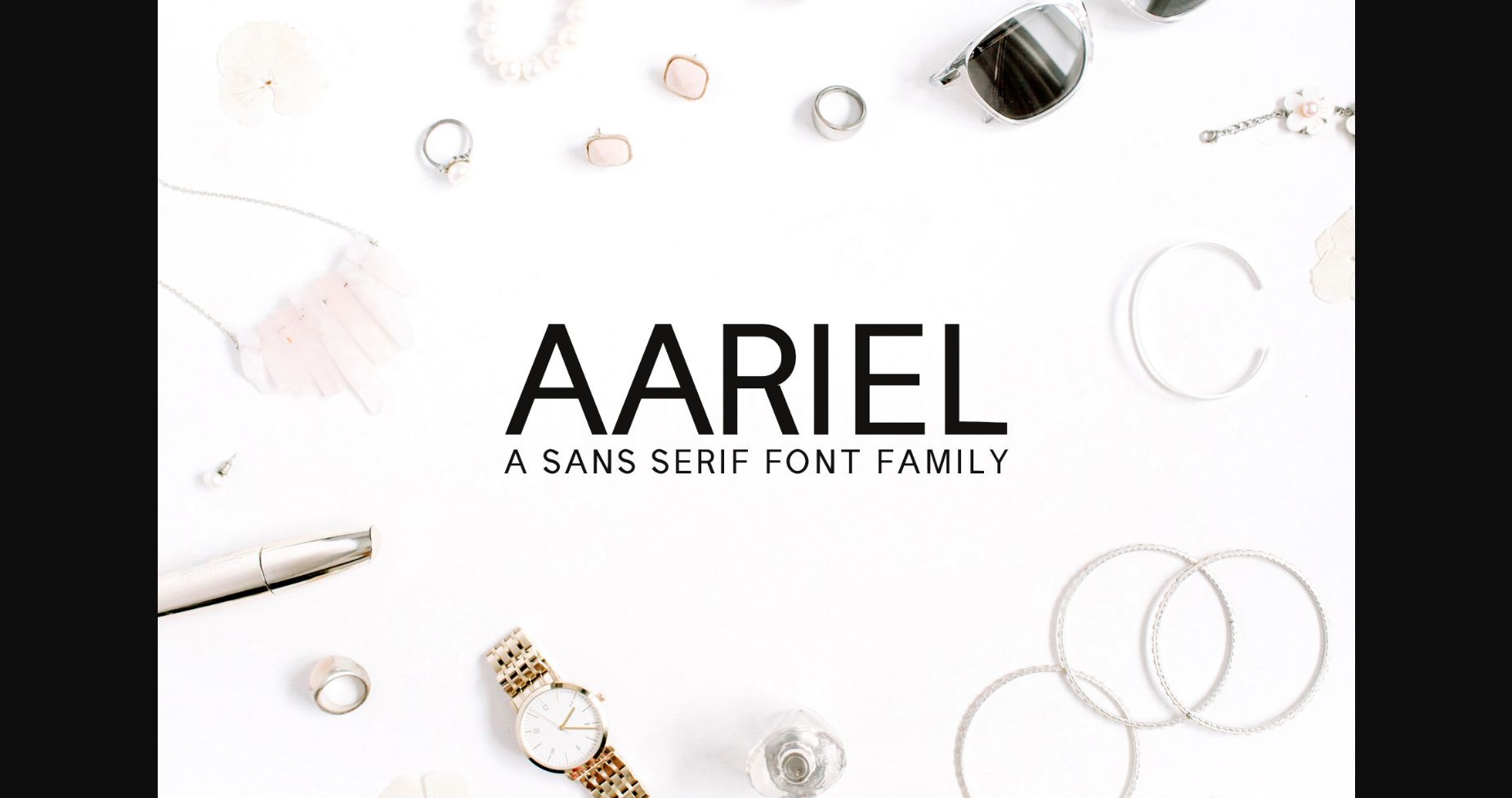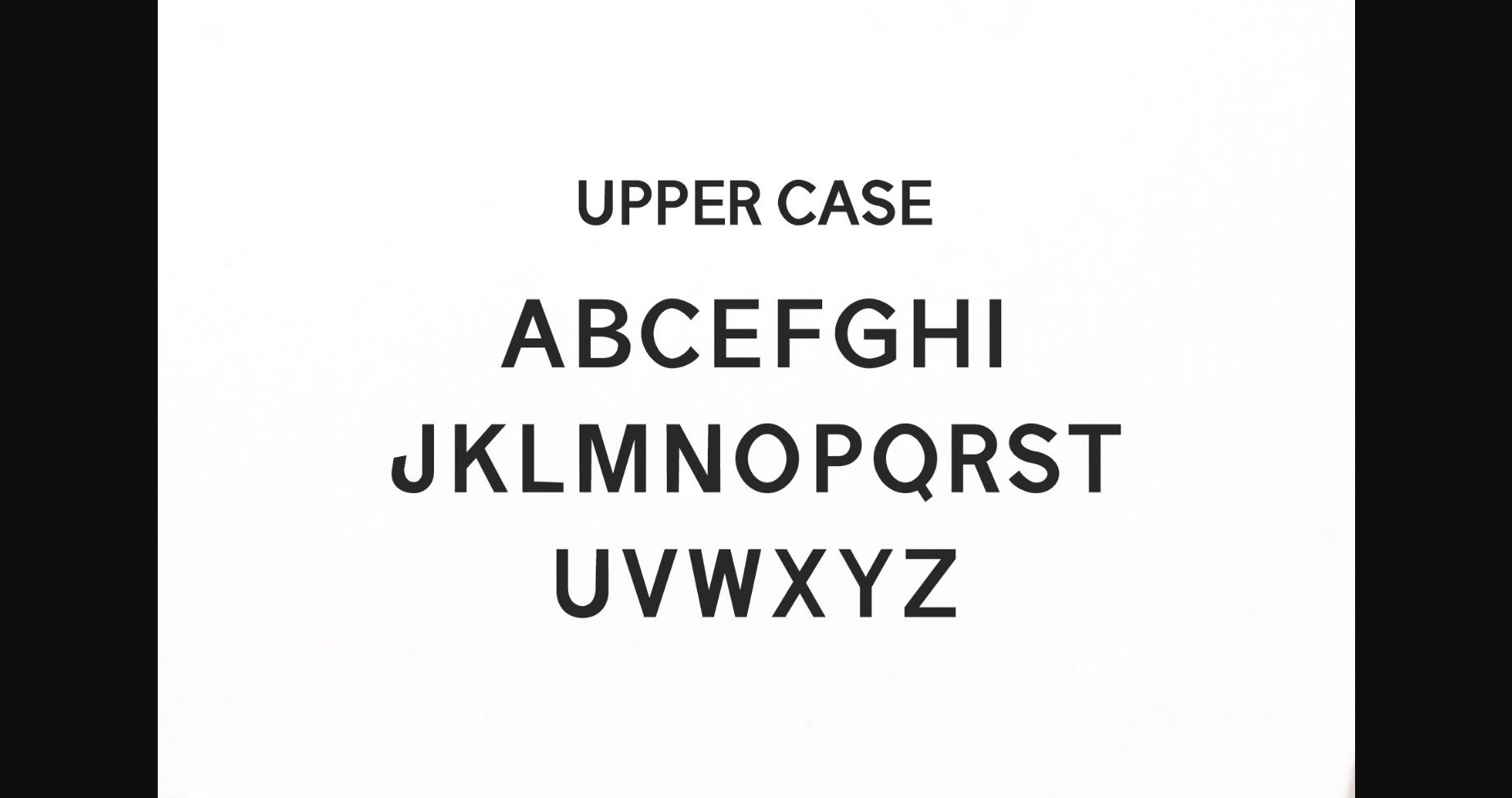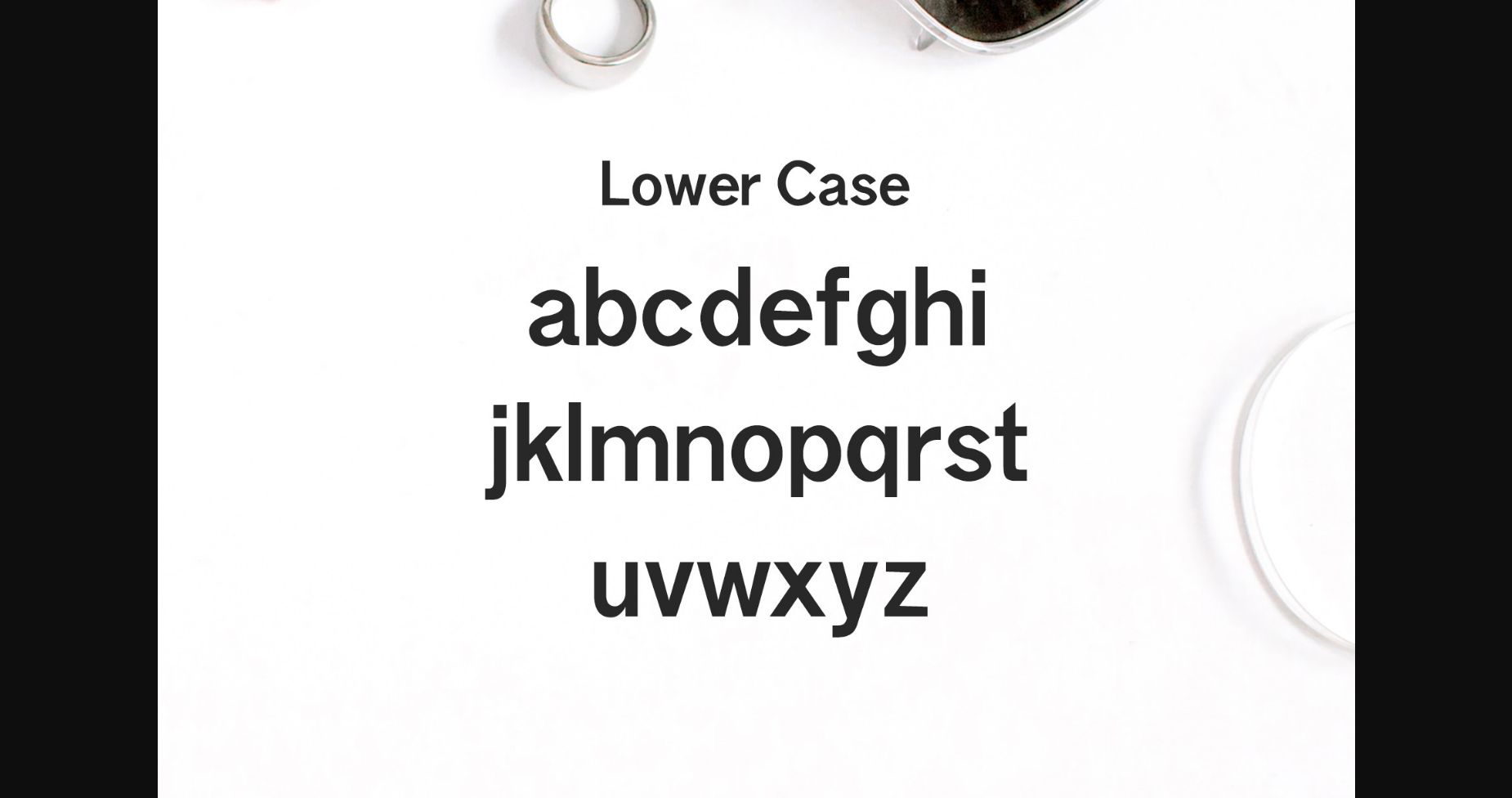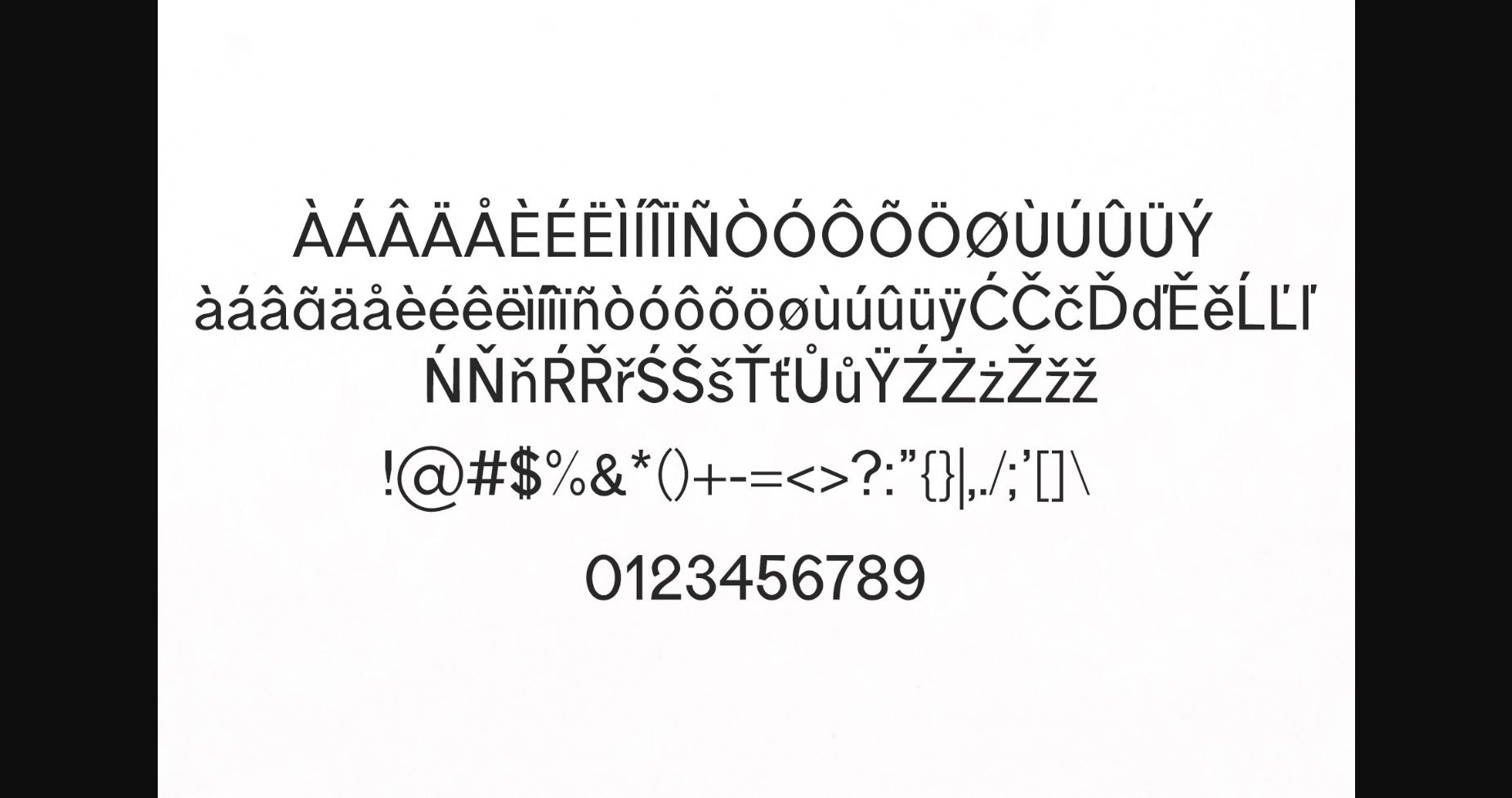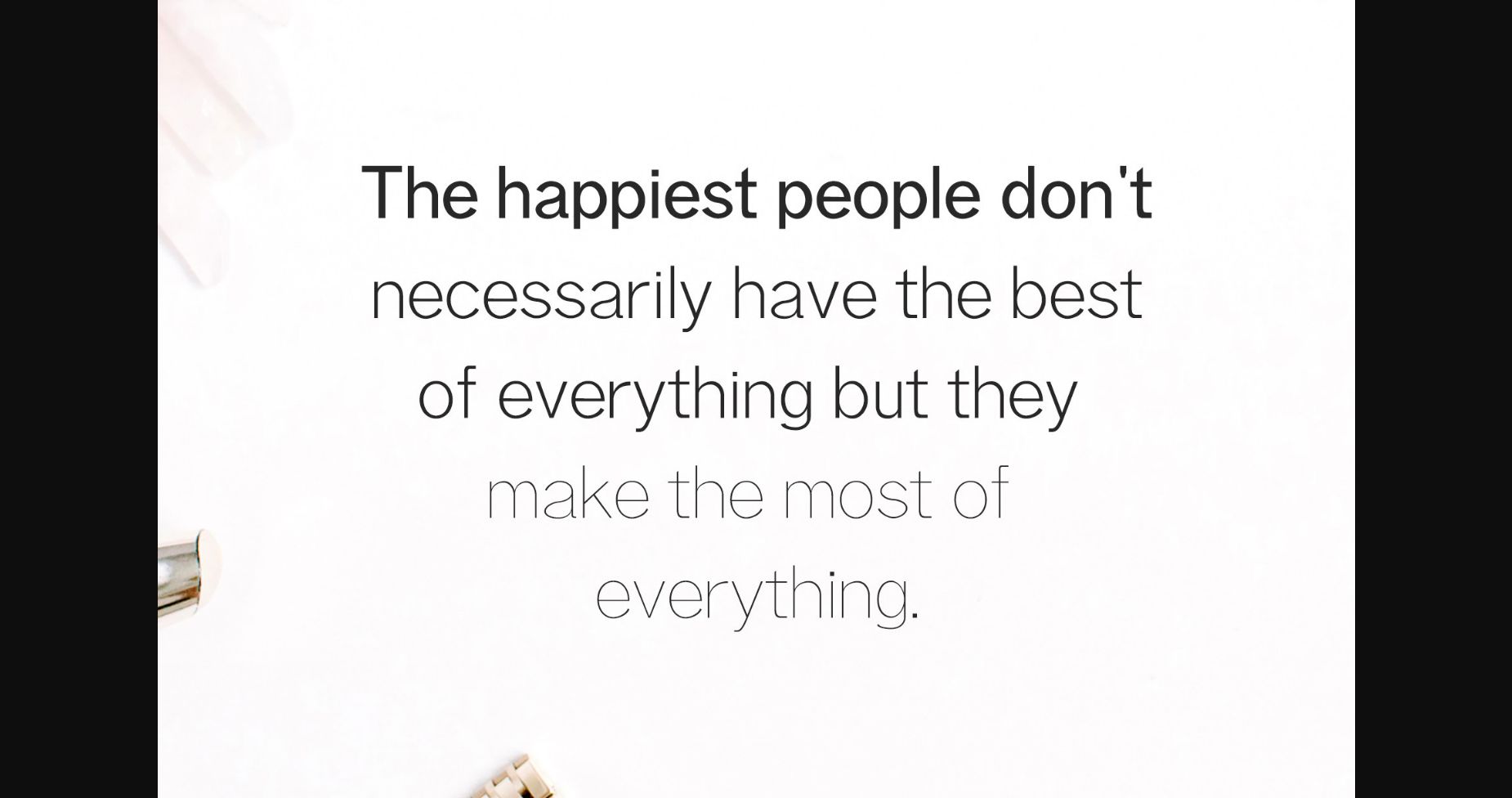
HomeSans Serif FontsAariel Family Font Sans Serif Fonts Aariel Family Font FacebookXPinterestWhatsApp 1 of 7 ... Aariel Family Font Poster 2... Aariel Family Font Poster 3... Aariel Family Font Poster 4... Aariel Family Font Poster 5... Aariel Family Font Poster 6... Aariel Family Font Poster 7... About Aariel Family Font Aariel is a clean and modern sans serif font family. It has nicely shaped characters and a very easy-to-read style which makes this font a great fit for logos, headlines, magazines, small text, and many other crafty ideas. DOWNLOAD NOW People also explored Momentum Font Bryson Font Boho Font Mawarlathi Font Meyriska Font Duck Font Bergolost Font Santiago Font Everly Font 317 0 TagsAariel Family Font Previous articleAdley Family FontNext articleHurst Family Font LEAVE A REPLY Cancel reply Comment: Please enter your comment! Name:* Please enter your name here Email:* You have entered an incorrect email address! Please enter your email address here Website: Save my name, email, and website in this browser for the next time I comment. Personal Use Free Rembank Personal Use Free Read more about this font Trio Personal Use Free Read more about this font Evensong Hollow Personal Use Free Read more about this font Super Bubbly Font Personal Use Free Read more about this font BLOG Free Fonts Risk: Why Free Fonts Can Be Dangerous for Designers Free Fonts Risk: Why Free Fonts Can Be Dangerous for Designers Using free fonts is a common practice in web and graphic design. However, the... Exploring Font Trends Best Fonts for T-Shirt Design – Top 2025 Picks The 10 Best Handwriting Fonts to Add Personality to Your Designs